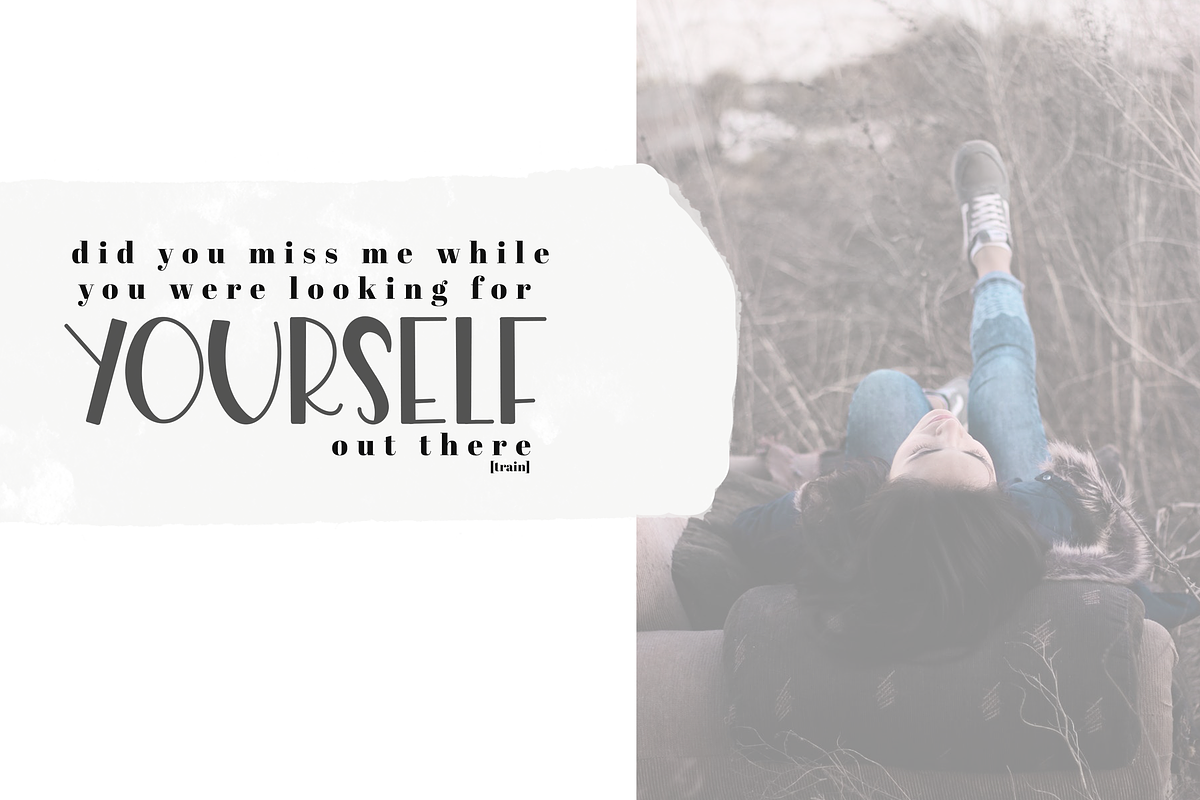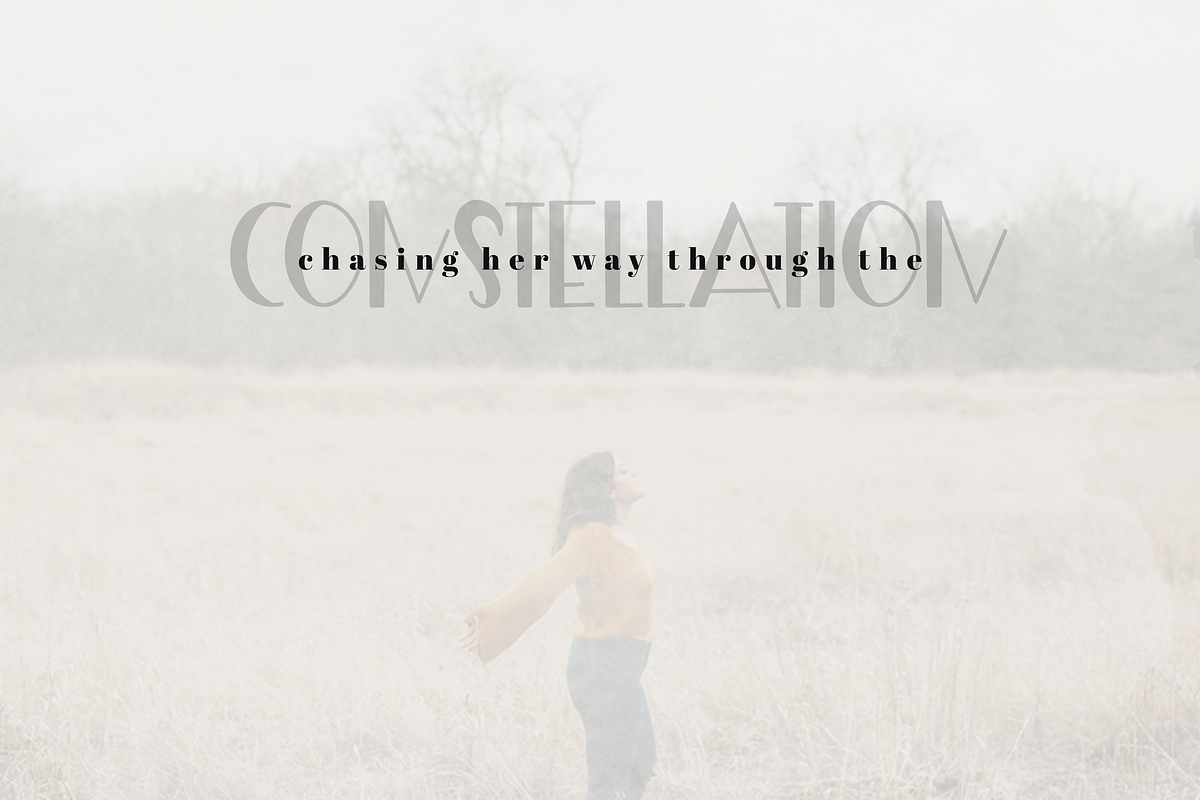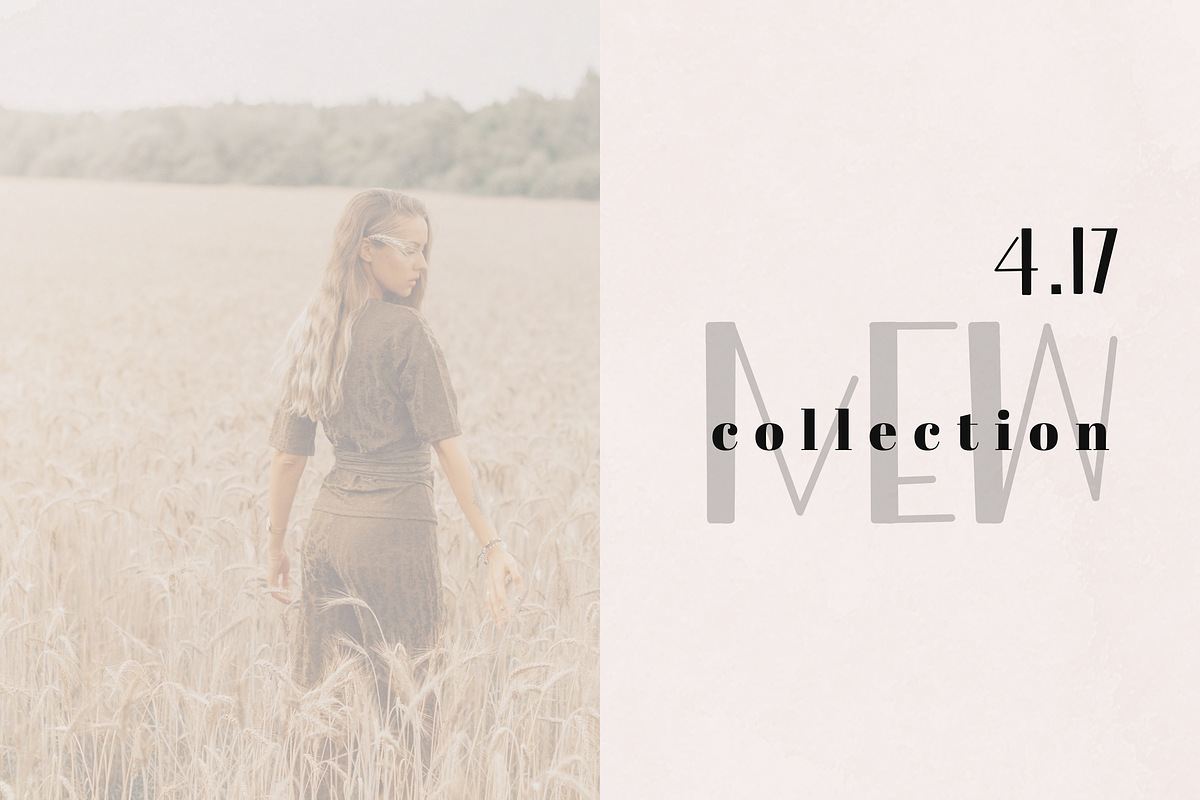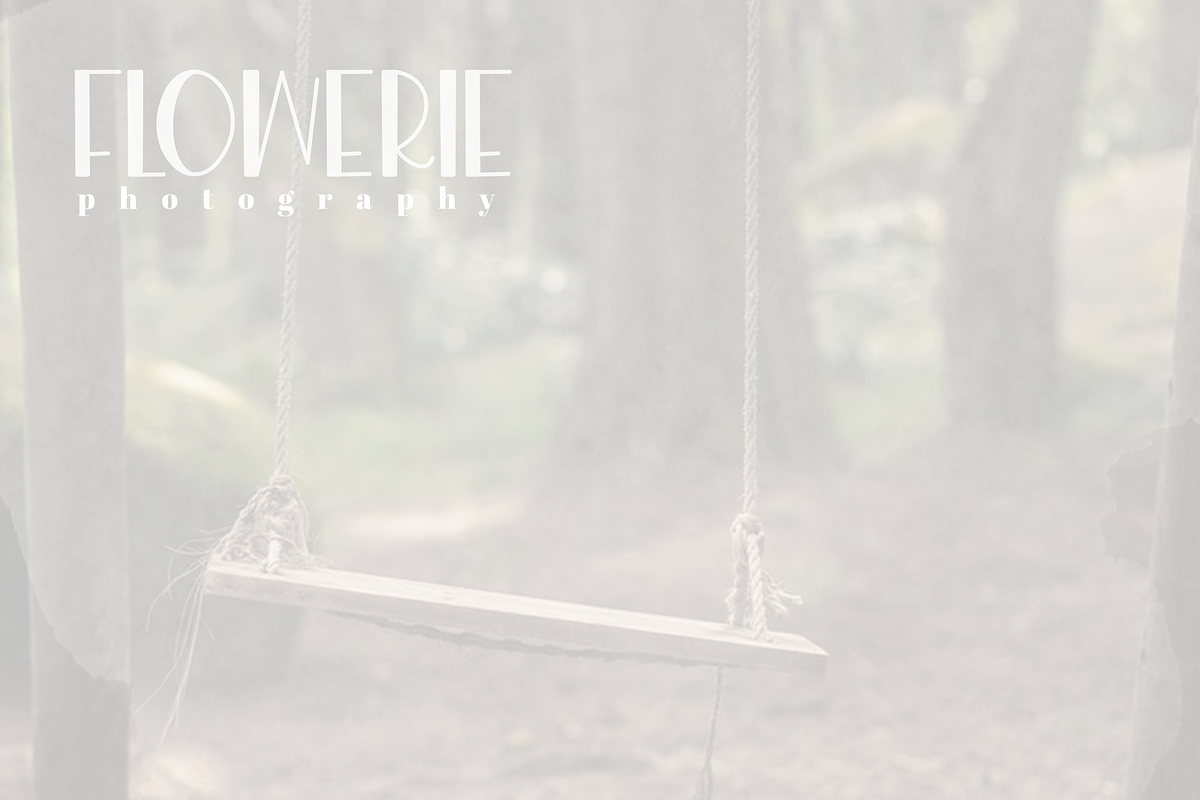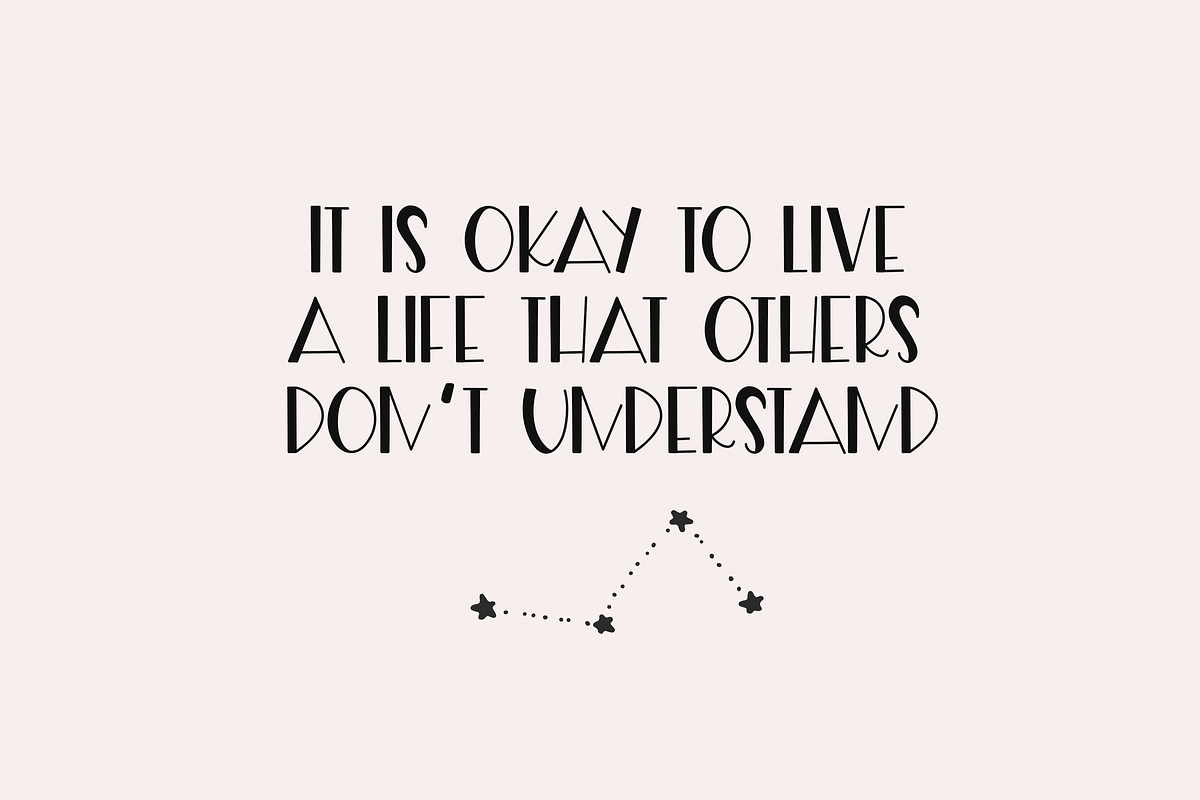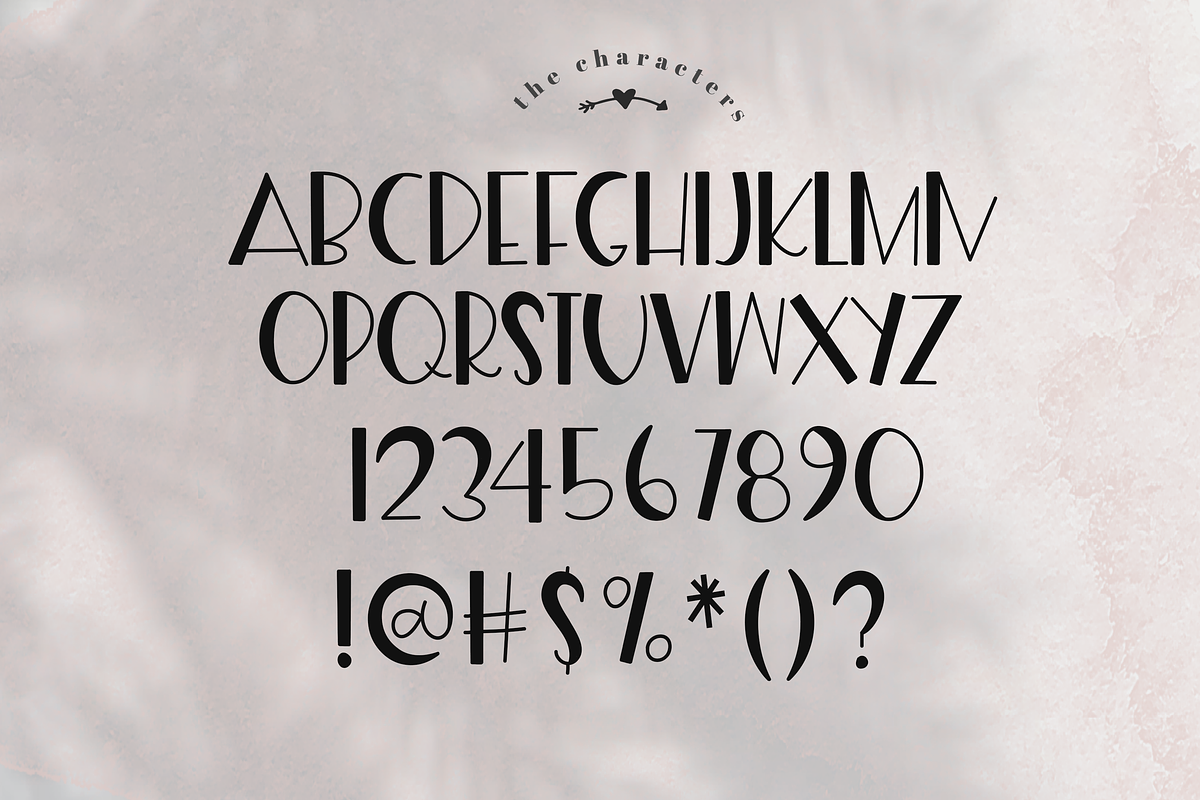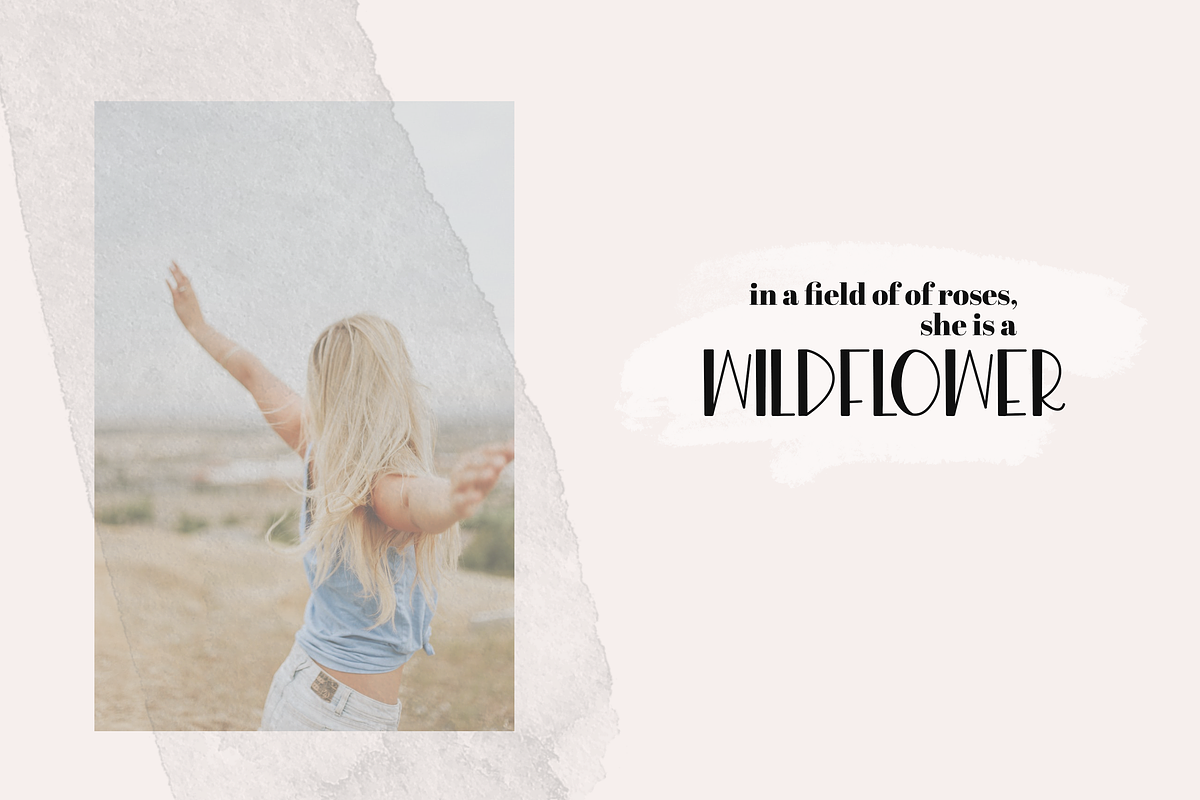
Dreamer - Free Spirit Font
Dreameris a fun, free spirit - display font.
This font is perfect for quotes, headings, blogs, logos, invitations and more!